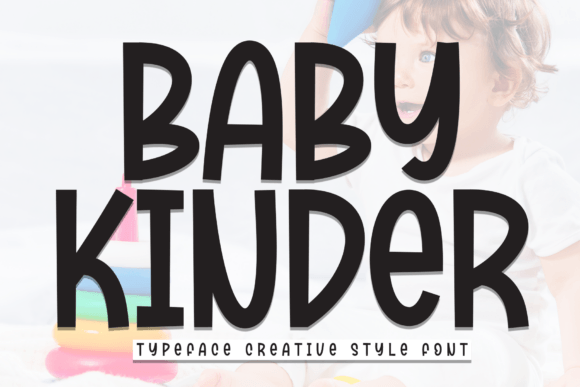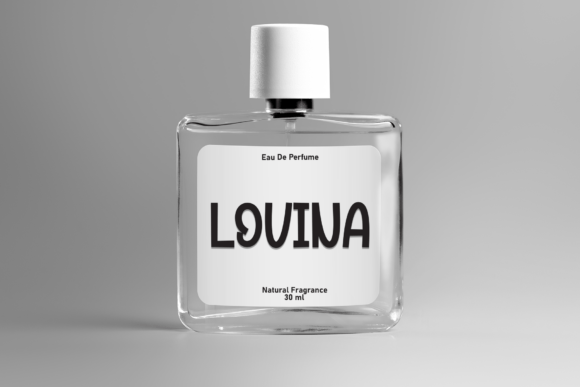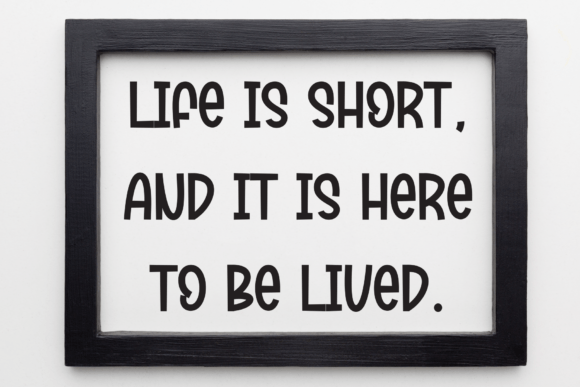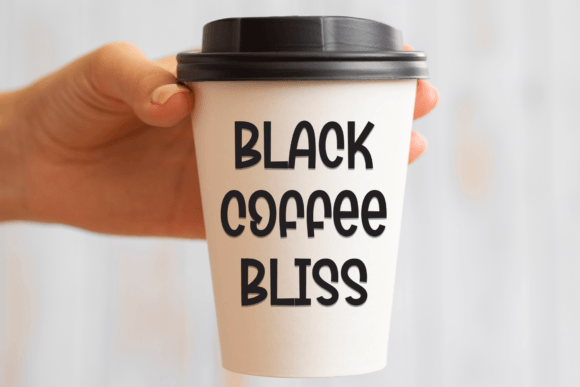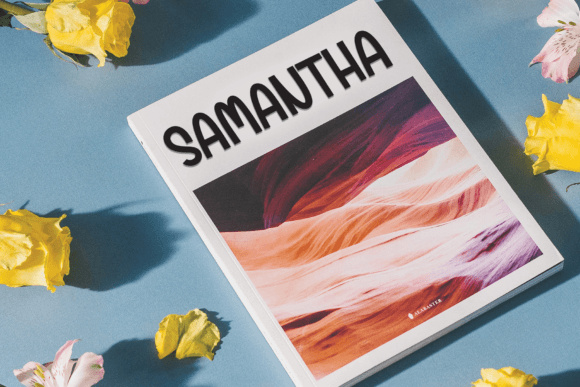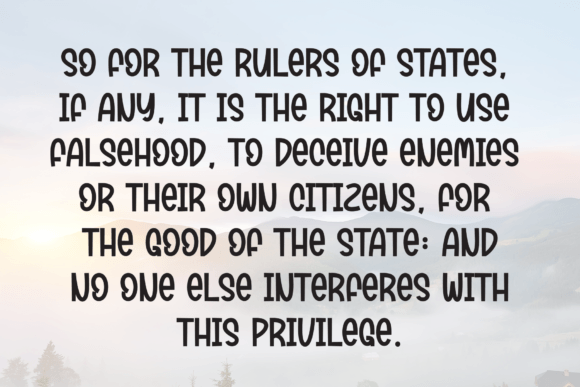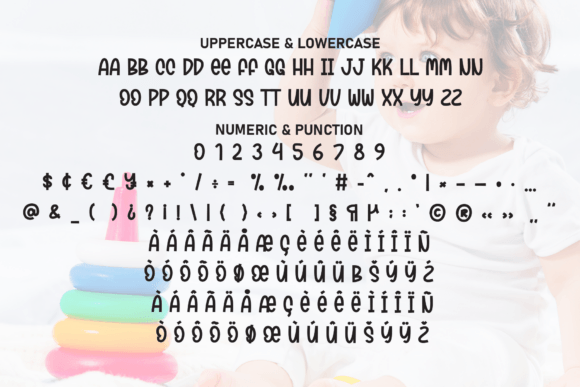
Meet the Font that Steals Hearts: Baby Kinder Font
You know that moment when you stumble upon the perfect font, and it instantly sparks an idea for a new project? For designers, it’s a feeling like no other. And, trust us, you’re in for a treat with Baby Kinder Font. This charming handwritten display font is specifically designed to evoke a sweet and friendly persona, making it a perfect fit for wedding invitations, cards, and other designs that require a touch of warmth and playfulness.
With its endearing nuances of cuteness and fun, Baby Kinder Font adds a splash of cheerfulness to any design. Whether you’re a seasoned designer or just starting out, this font is an ideal companion for any project seeking that unique, fun-filled touch. By incorporating Baby Kinder Font into your designs, you’ll be able to create visually appealing and engaging content that resonates with your audience.
Baby Kinder Font Key Features
- Font Family: Baby Kinder Font is a custom-designed font family, perfect for creating a playful and endearing atmosphere.
- Character Set: The font includes a wide range of characters, including uppercase and lowercase letters, numbers, and punctuation marks, as well as various symbols and accents.
- Unique Characteristics: The font features a unique, hand-drawn style with subtle imperfections, giving it a charming and whimsical feel.
Designer Review: Baby Kinder Font
As a designer, I was excited to dive into the Baby Kinder Font. This font has a certain charm to it, with a playful, whimsical feel that’s perfect for children’s books, nursery decor, and other projects where a soft, gentle look is desired. ✨ The rounded edges and gentle curves of the font make it feel approachable and friendly, which is exactly what you’d want for a font targeting young readers.
One of the things that stands out about Baby Kinder Font is its versatility. It’s available in a range of weights, from light to bold, which makes it easy to use in a variety of contexts. The font also includes a range of symbols and punctuation marks, which can add an extra touch of whimsy to your designs. ✨
While Baby Kinder Font has a lot to offer, there are some limitations to be aware of. One of the main issues is the font’s relatively limited character set. While it includes a range of basic letters and numbers, it’s not ideal for use in complex documents or long blocks of text. Additionally, the font’s aesthetic may not be suitable for all projects – it’s a very playful, childlike look that may not be the best fit for more formal or serious designs. ⚠️
Overall, I think Baby Kinder Font is a great choice for designers working on projects that require a playful, whimsical look. While it may not be the most versatile font out there, it’s perfect for its intended use cases. With a little creativity and experimentation, you can use Baby Kinder Font to create some truly unique and engaging designs. Just be aware of its limitations, and use it in context where its playful aesthetic will shine.
- Playful, whimsical feel perfect for children’s projects
- Available in a range of weights, from light to bold
- Includes a range of symbols and punctuation marks
- Limited character set may not be suitable for complex documents
- Aesthetic may not be suitable for formal or serious designs
Practical Application Guide: Baby Kinder Font
Tips for Getting the Most Out of Baby Kinder Font
For best results, use Baby Kinder Font in conjunction with bold, playful graphics and bright colors.
Consider using Baby Kinder Font for titles, headings, and emphasis.
Baby Kinder Font is perfect for:
Children’s party invitations and decorations